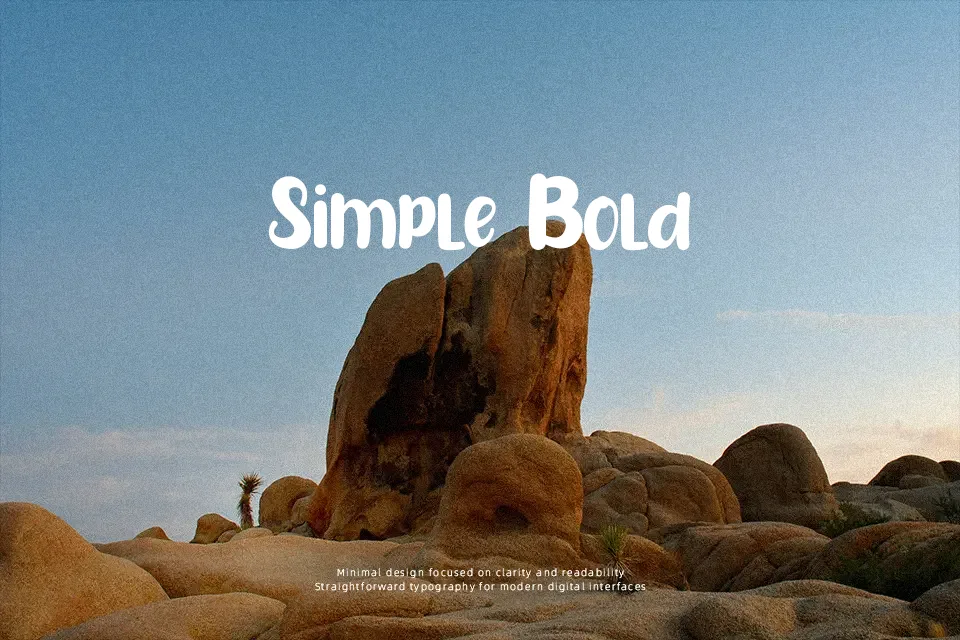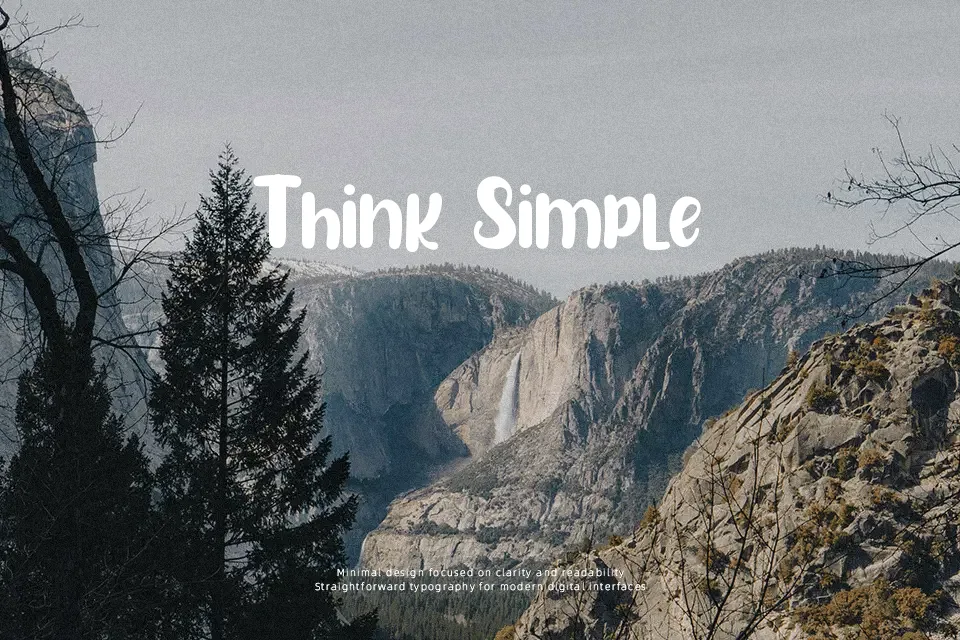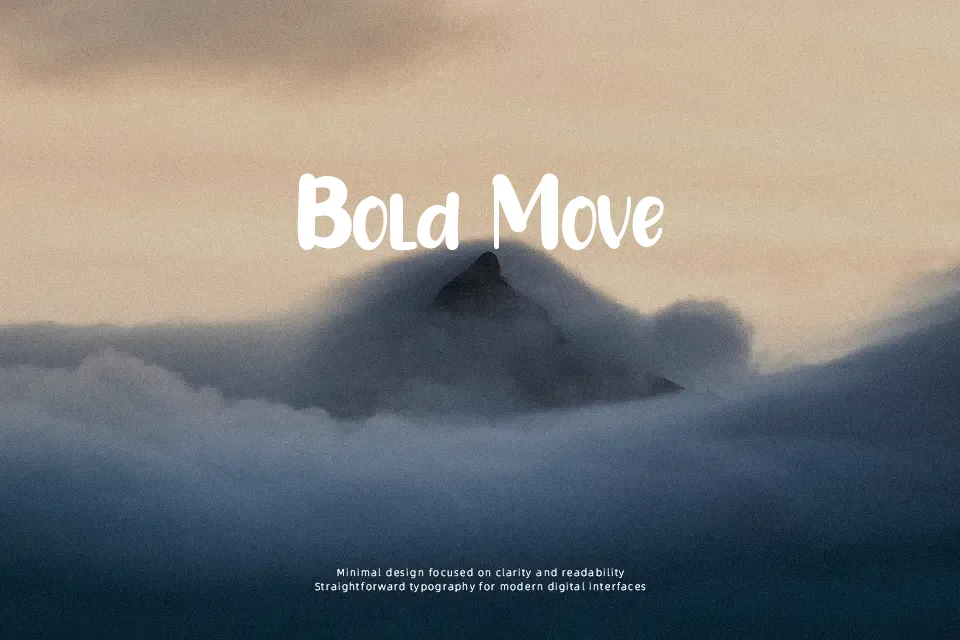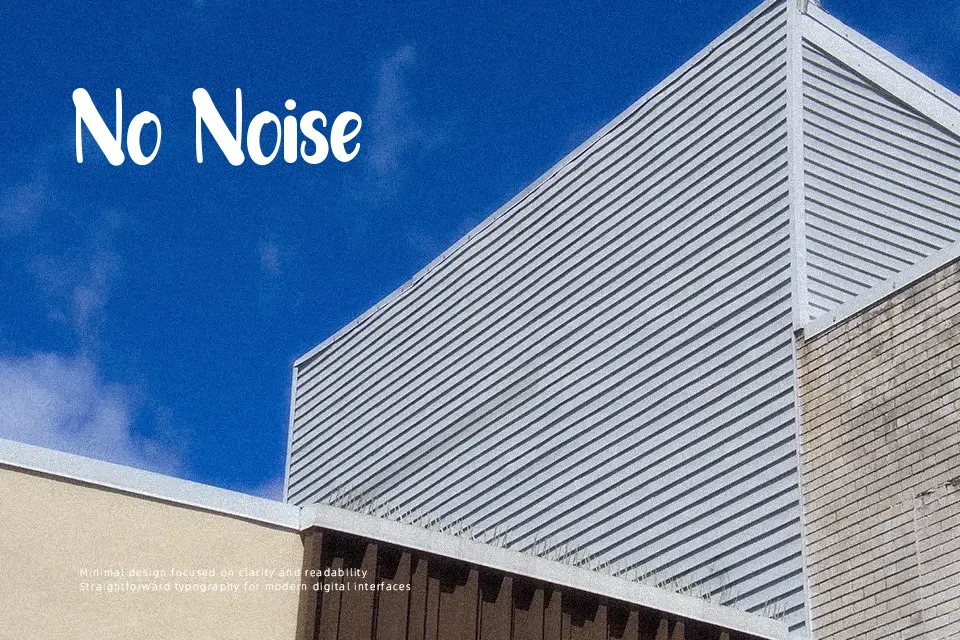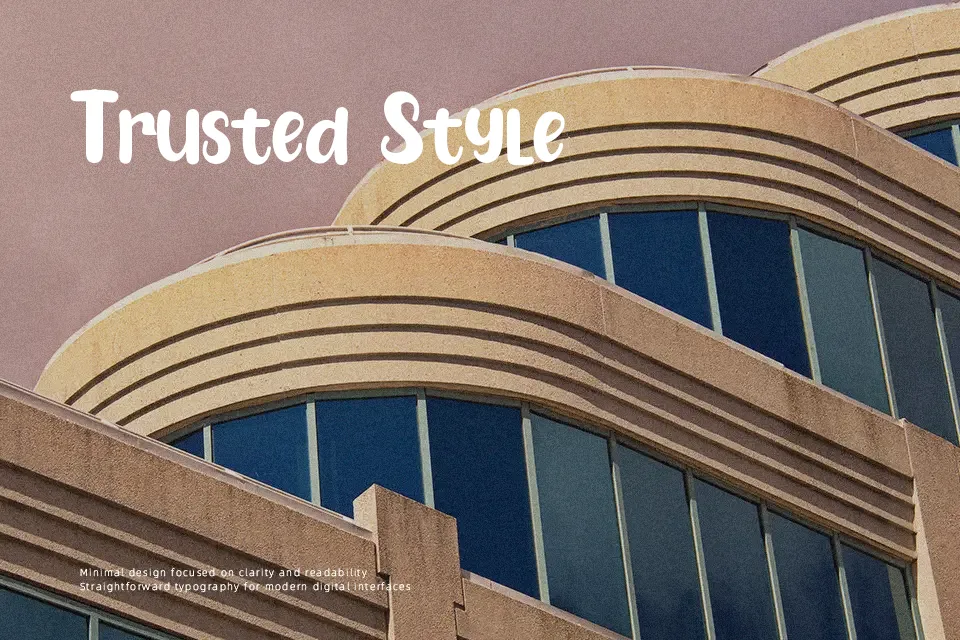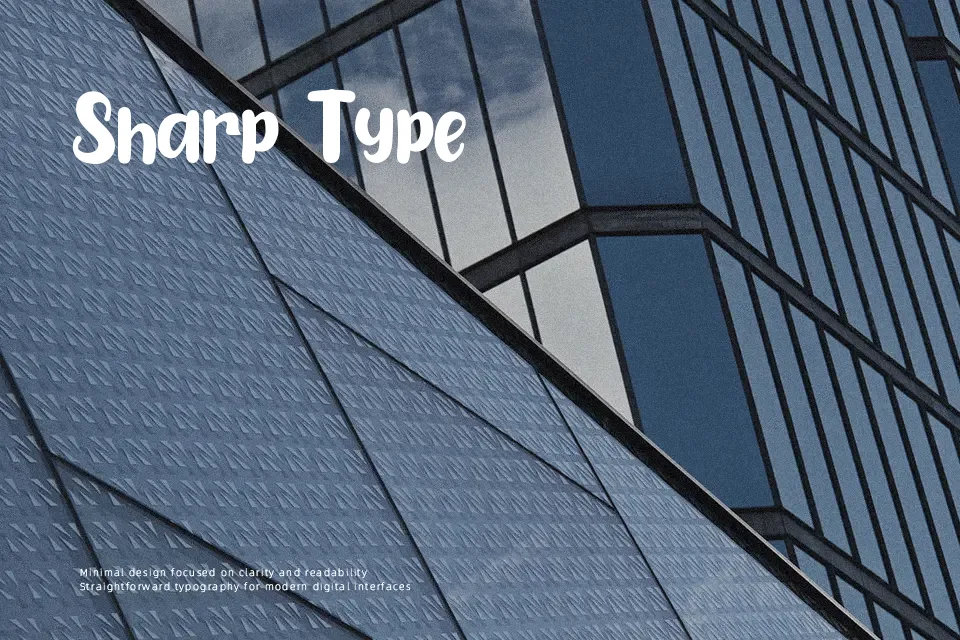
Sandy Kids Font
Sandy Kids Font establishes an approachable tone through its soft curves, plump character forms, and minimal stroke contrast. The generous letter spacing and wide counters maintain solid legibility in short headlines, though the extra-heavy weight makes the typeface less suitable for long paragraphs of dense text. In practical applications, the buoyant letter shapes excel on merchandise and vibrant poster layouts where an informal, child-friendly presence is required.
– children’s book titles
– party event flyers
– toy packaging design
– animated video thumbnails
– multi-page editorial body copy
– formal business correspondence
– compact user interface labels
– financial spreadsheets